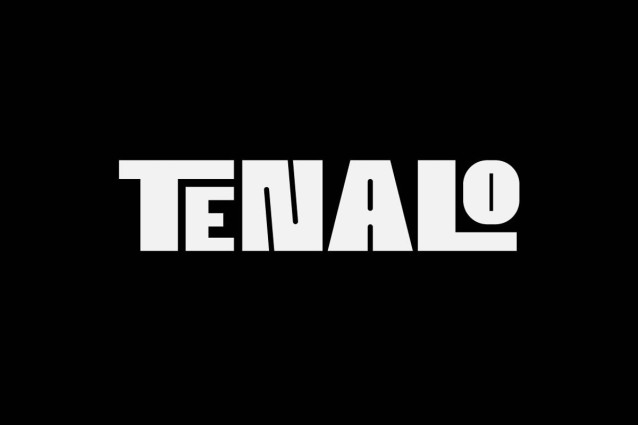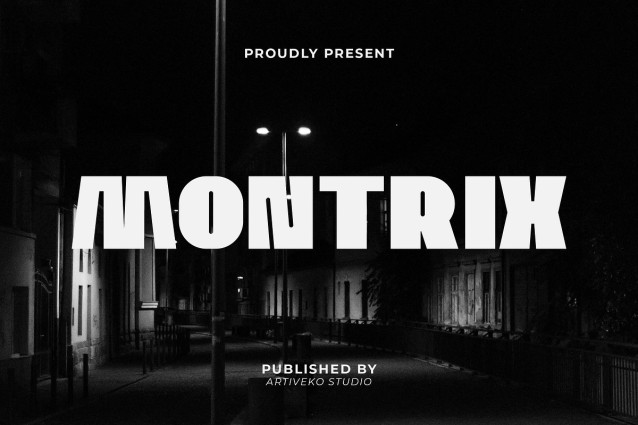
Montrix Font
Montrix Font is a strong, bold sans display font designed to make a lasting impression. With its thick strokes, clean lines, and confident structure, Montrix is perfect for projects that demand impact and clarity. This typeface is ideal for branding, posters, sports graphics, headlines, and product packaging.